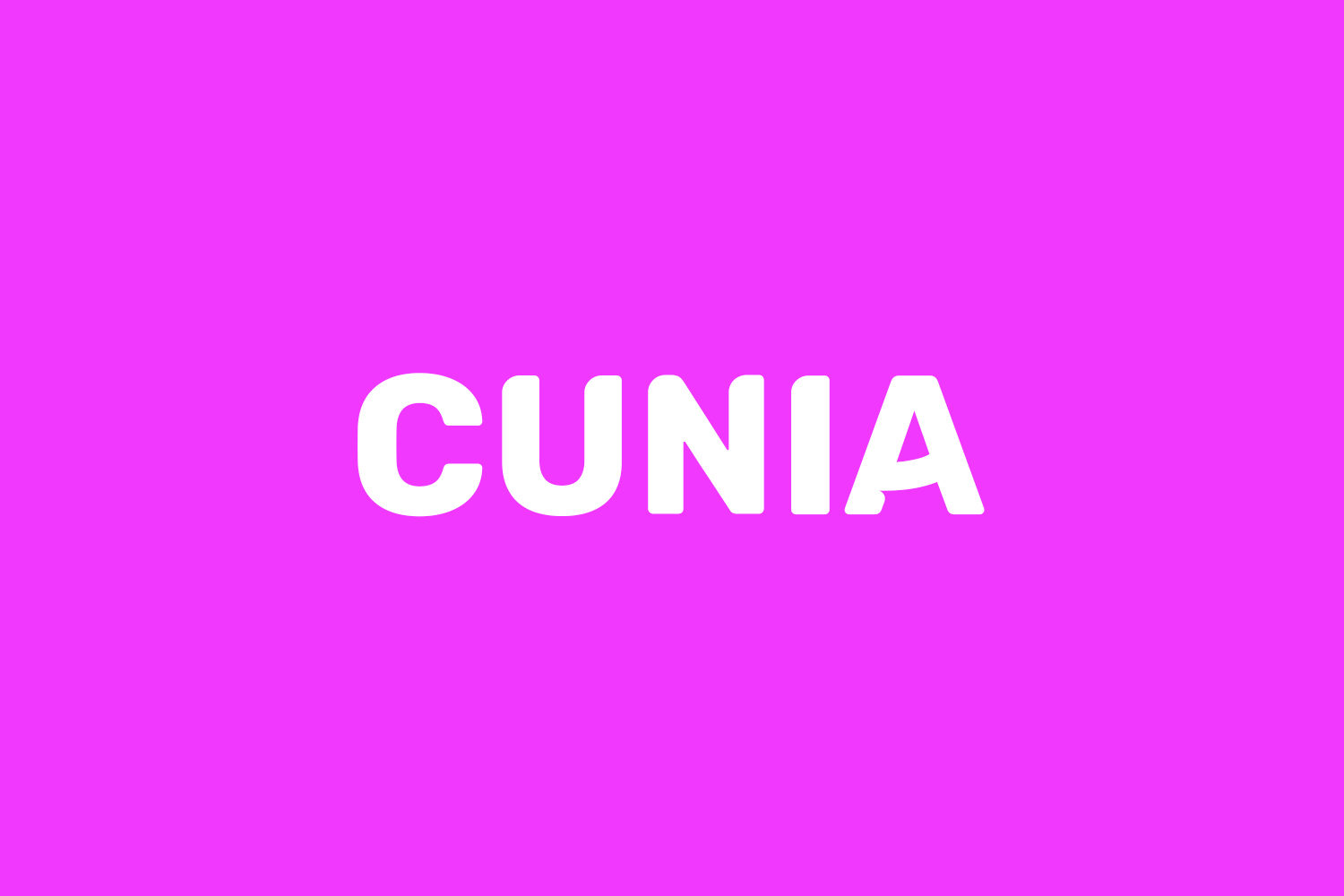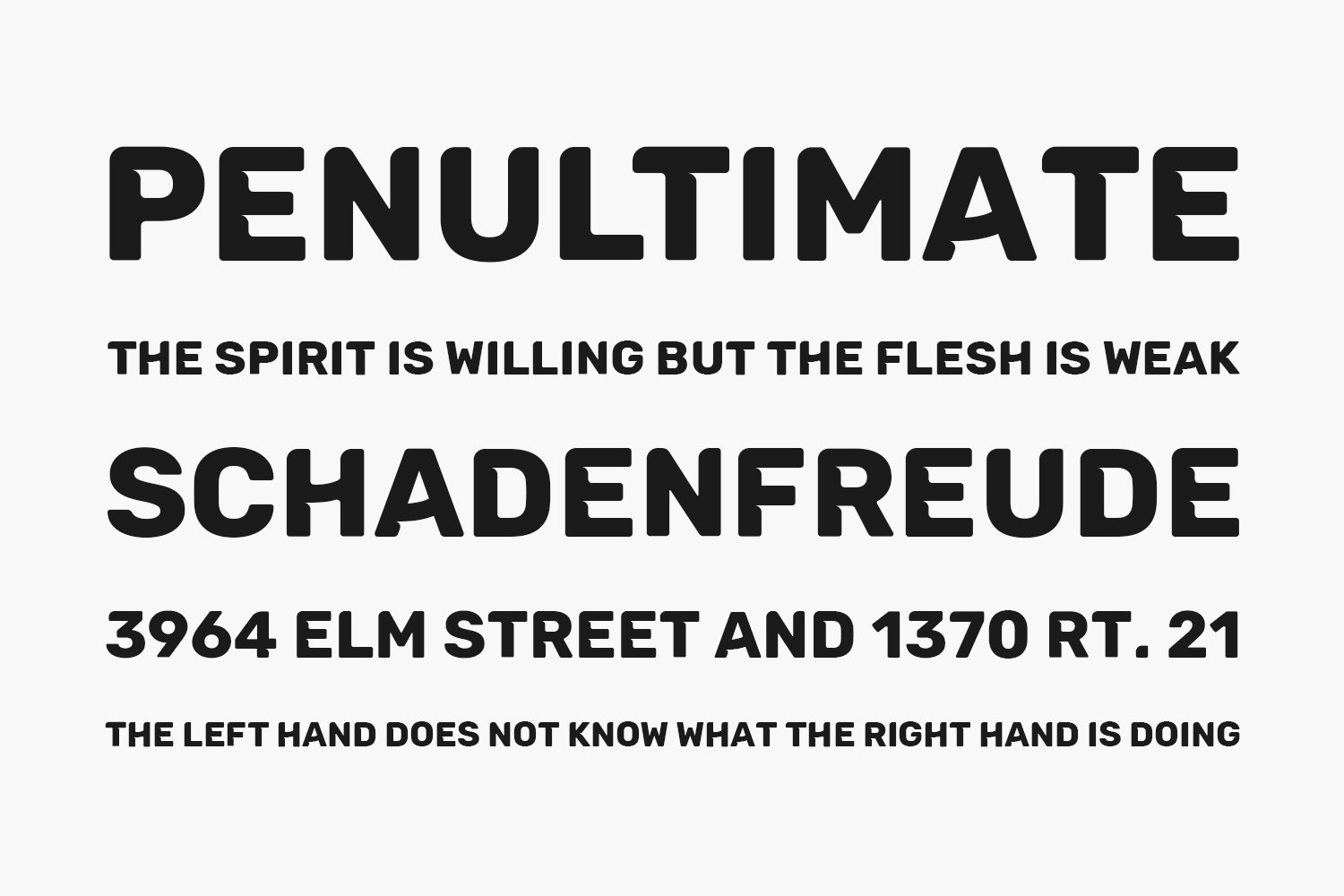
Cunia Free Font is a sans serif font with slightly rounded corners designed by Alejo Bergmann. It contains all caps letters, numerals, and symbols. This font perfectly suites for a variety of display purposes, including logotypes, badges and labels, headlines and banners, prints and much more.
Designed by Alejo Bergmann